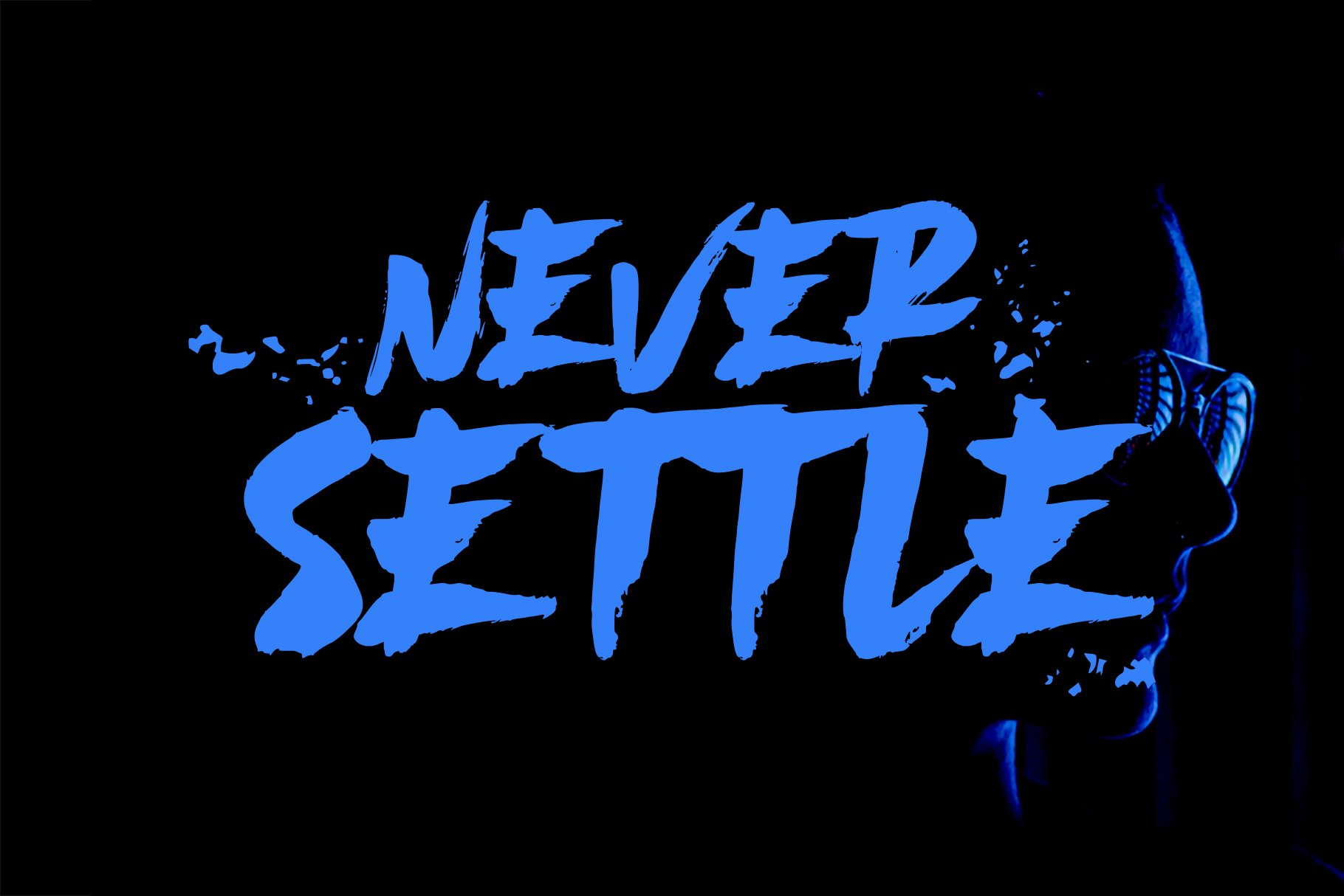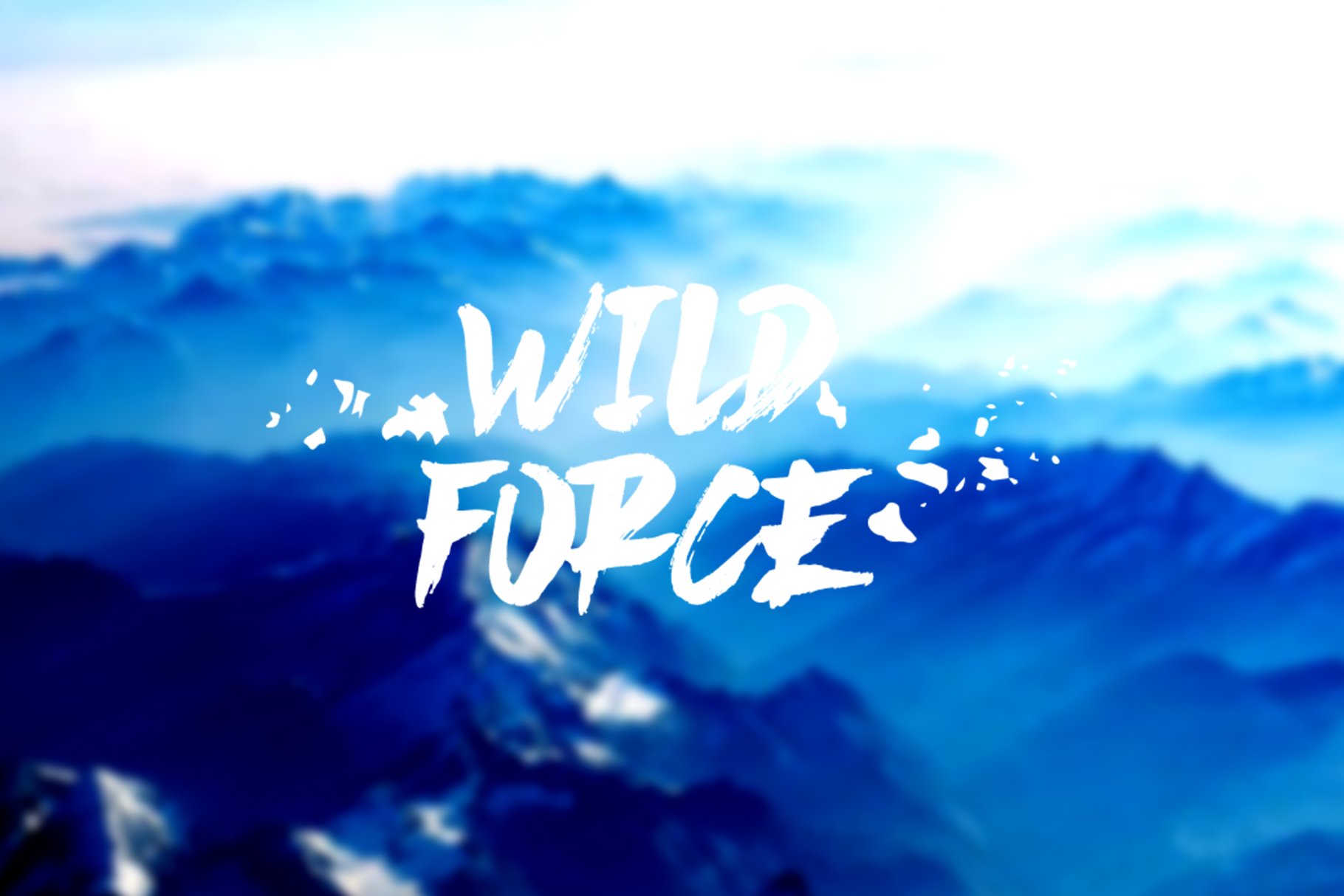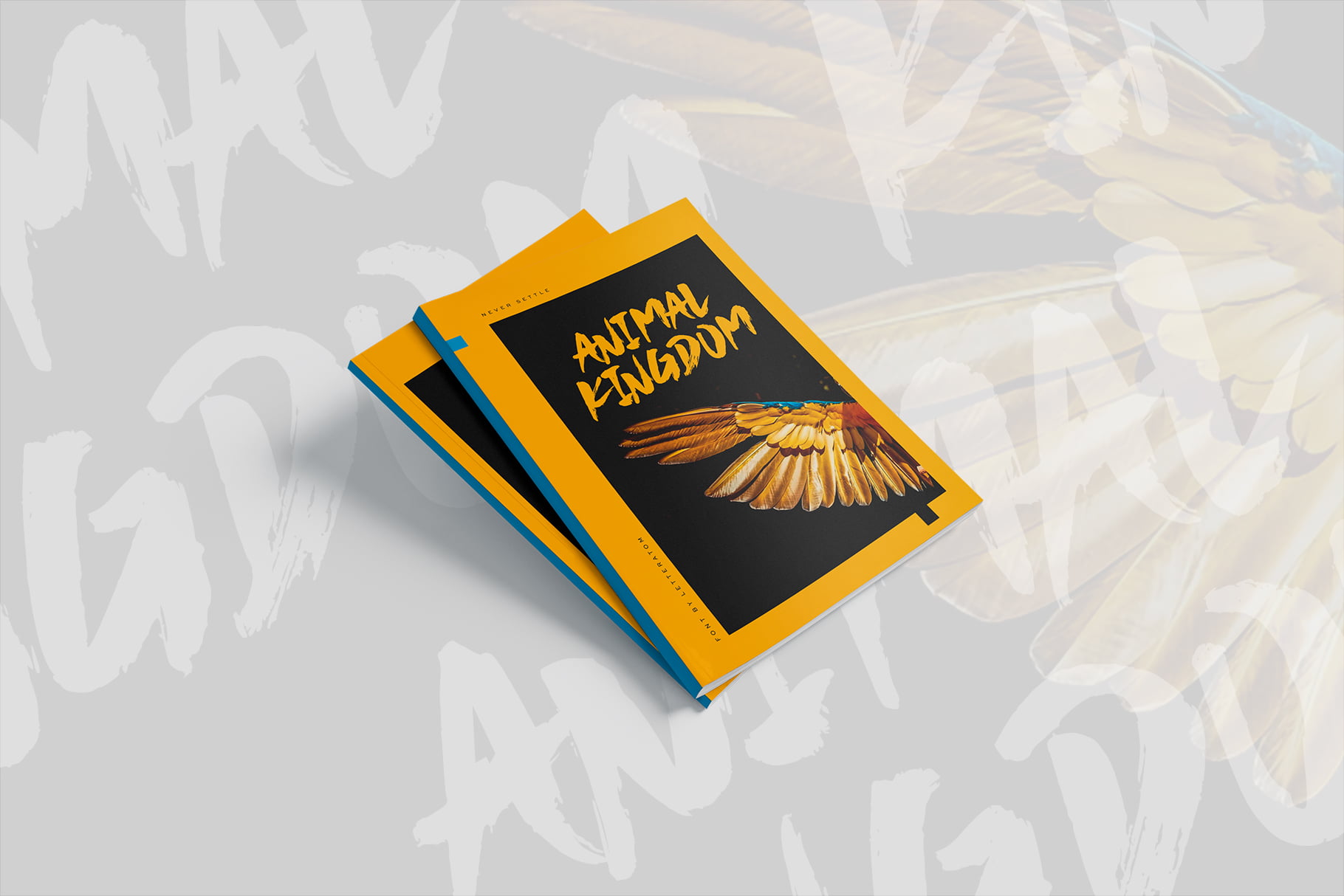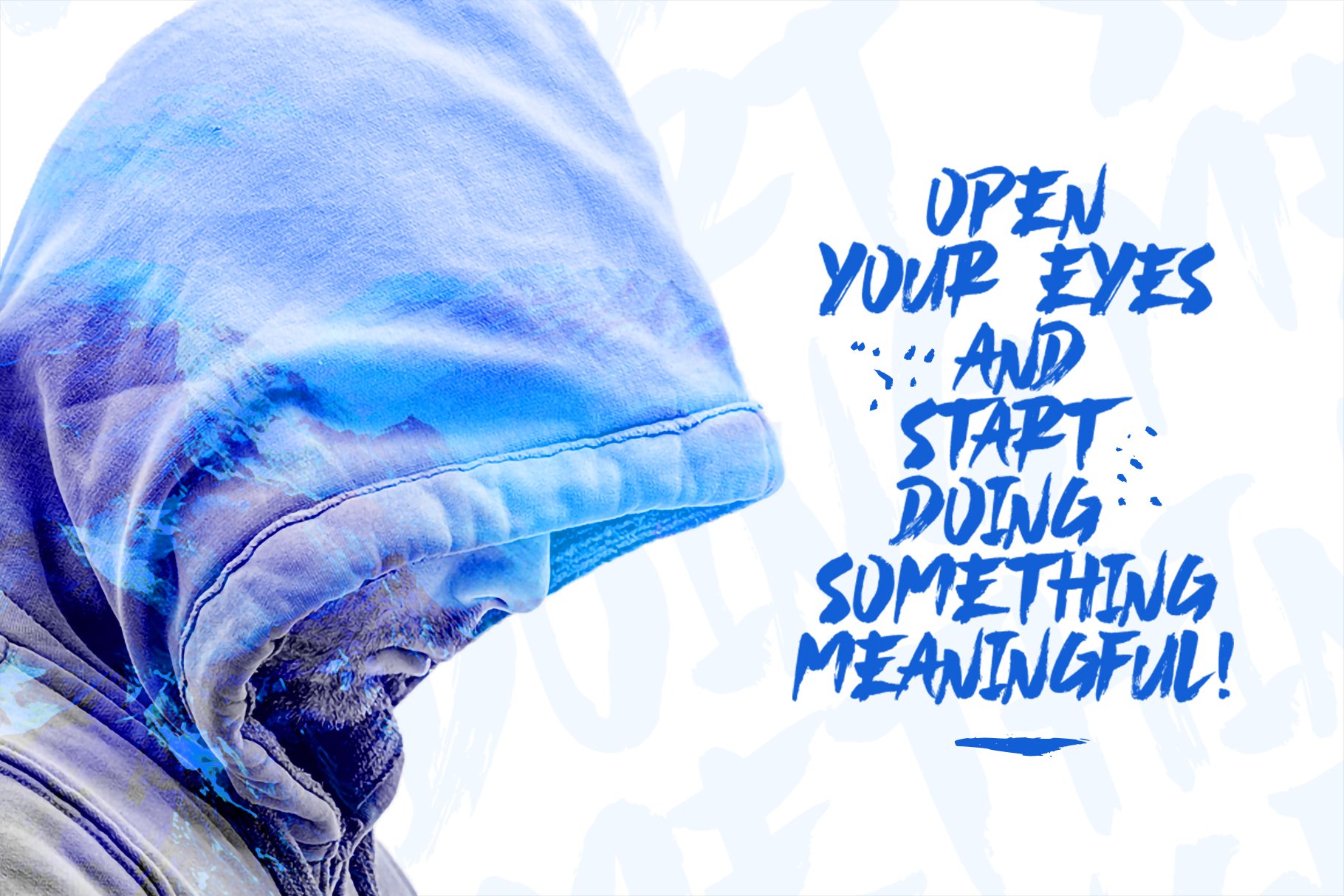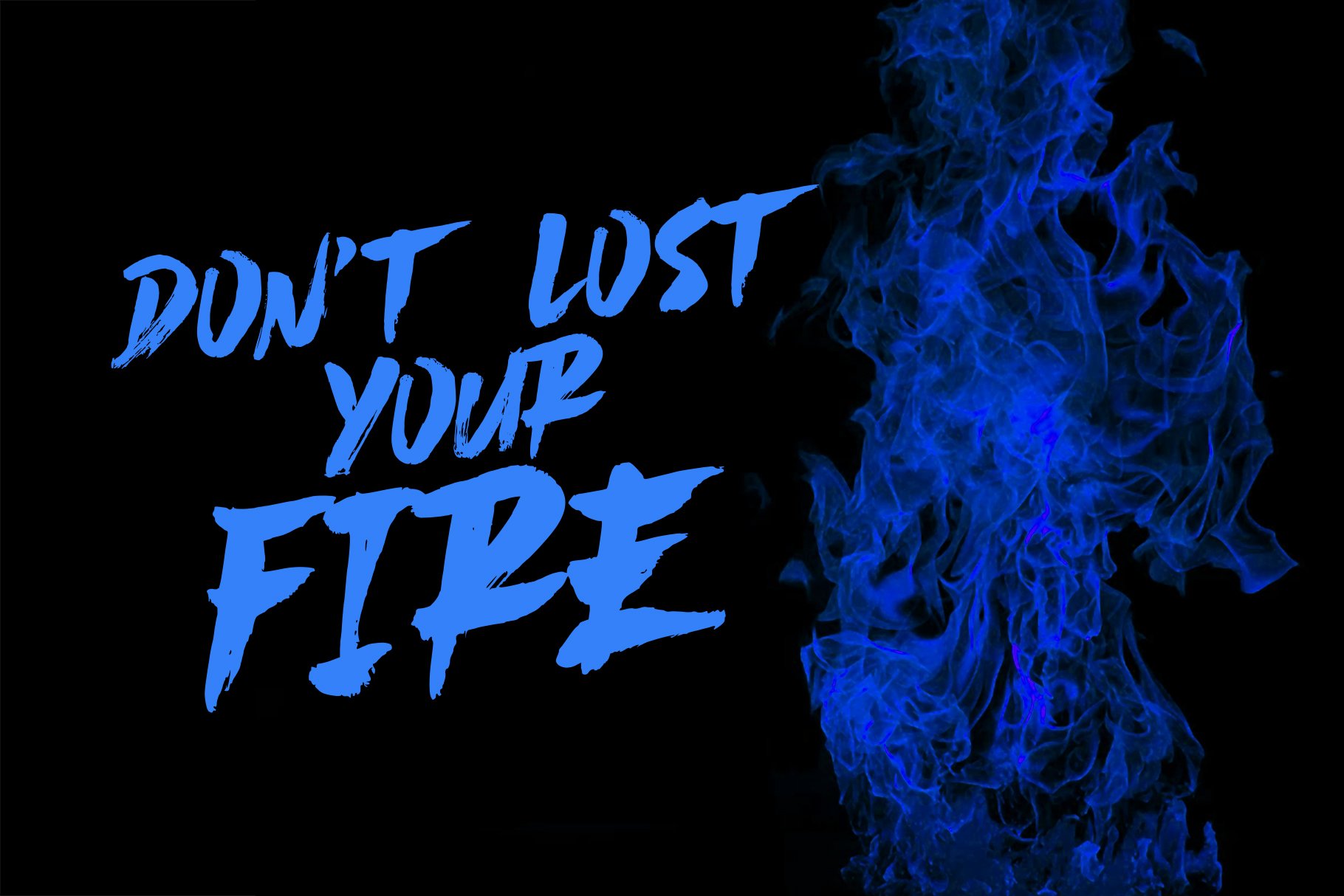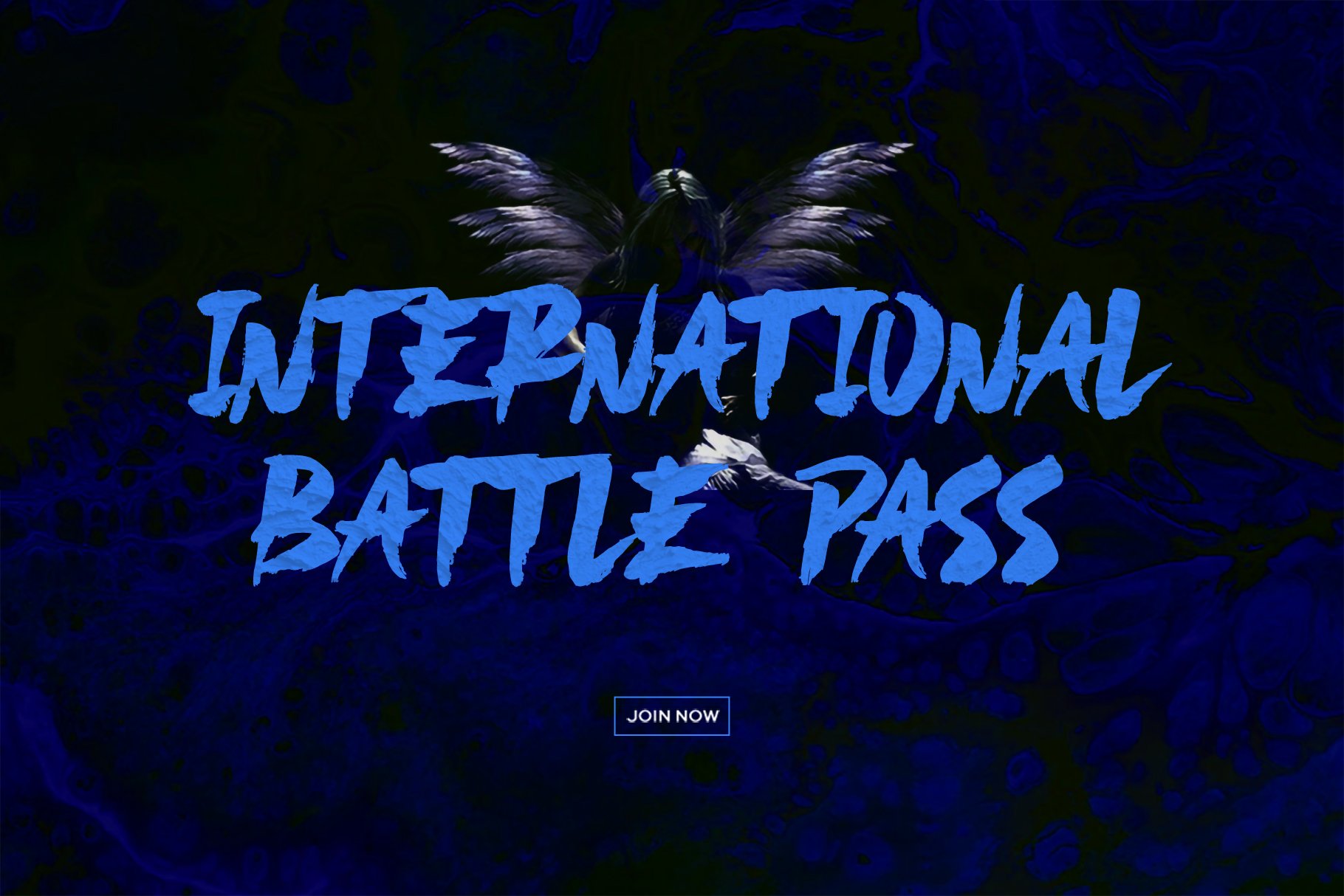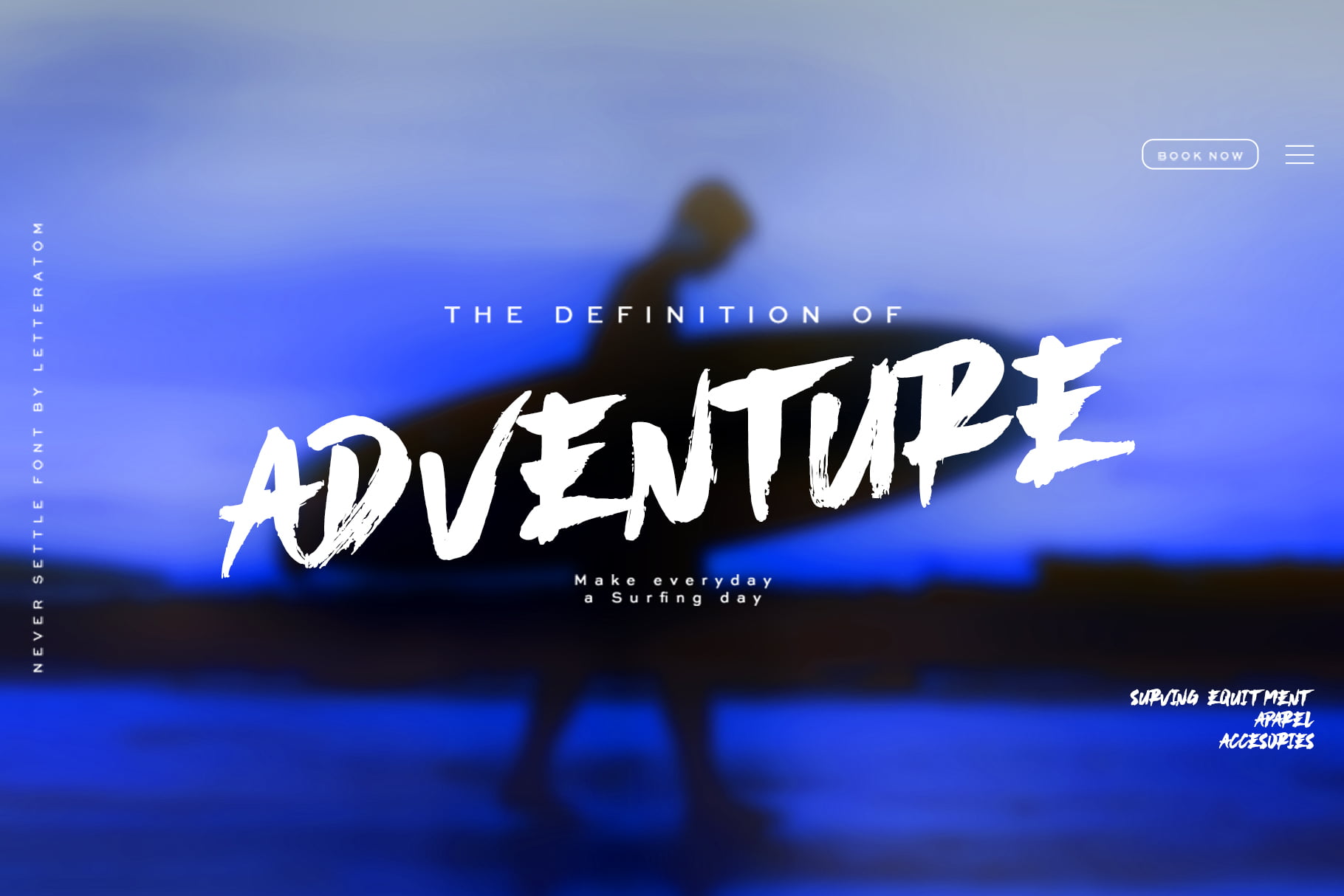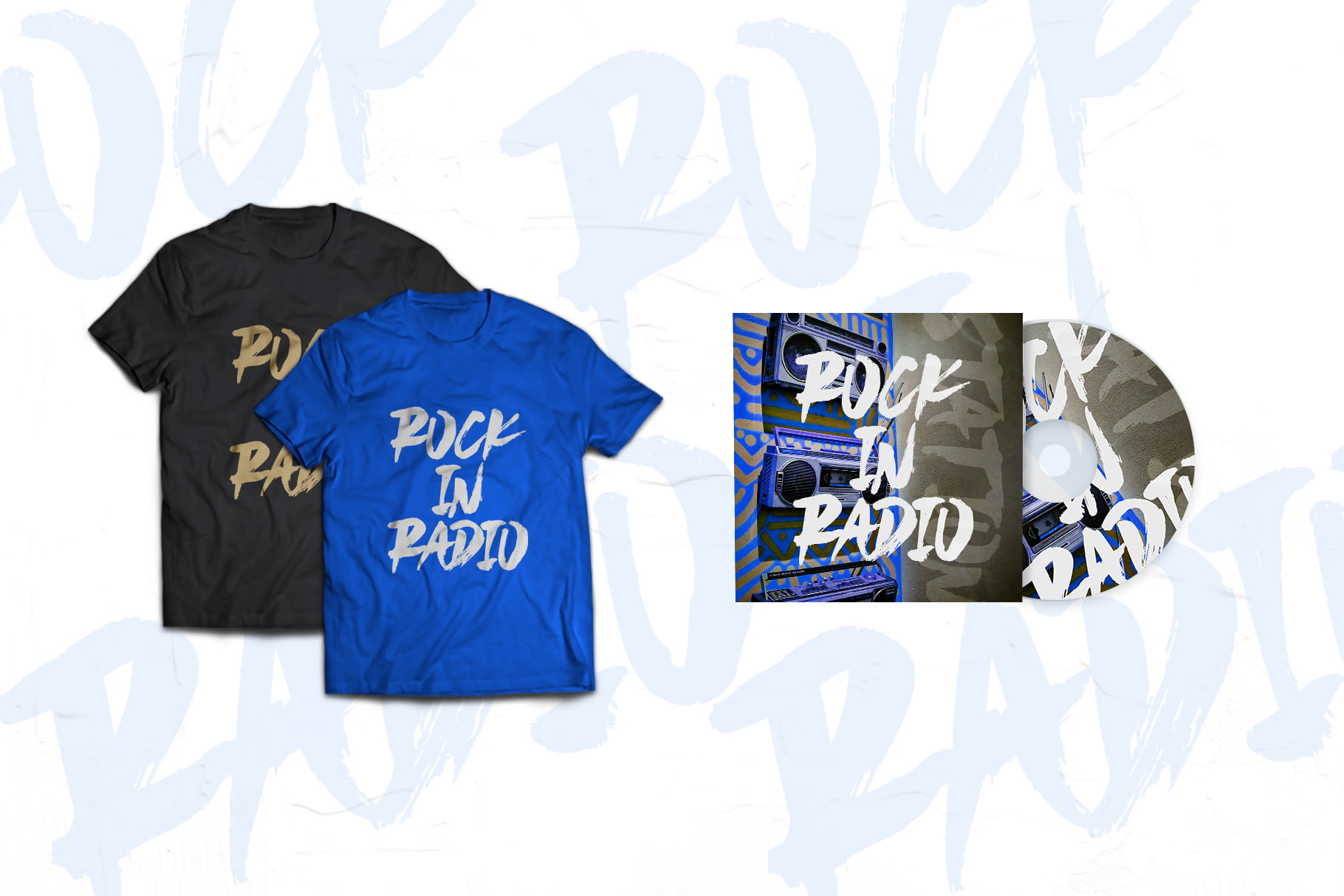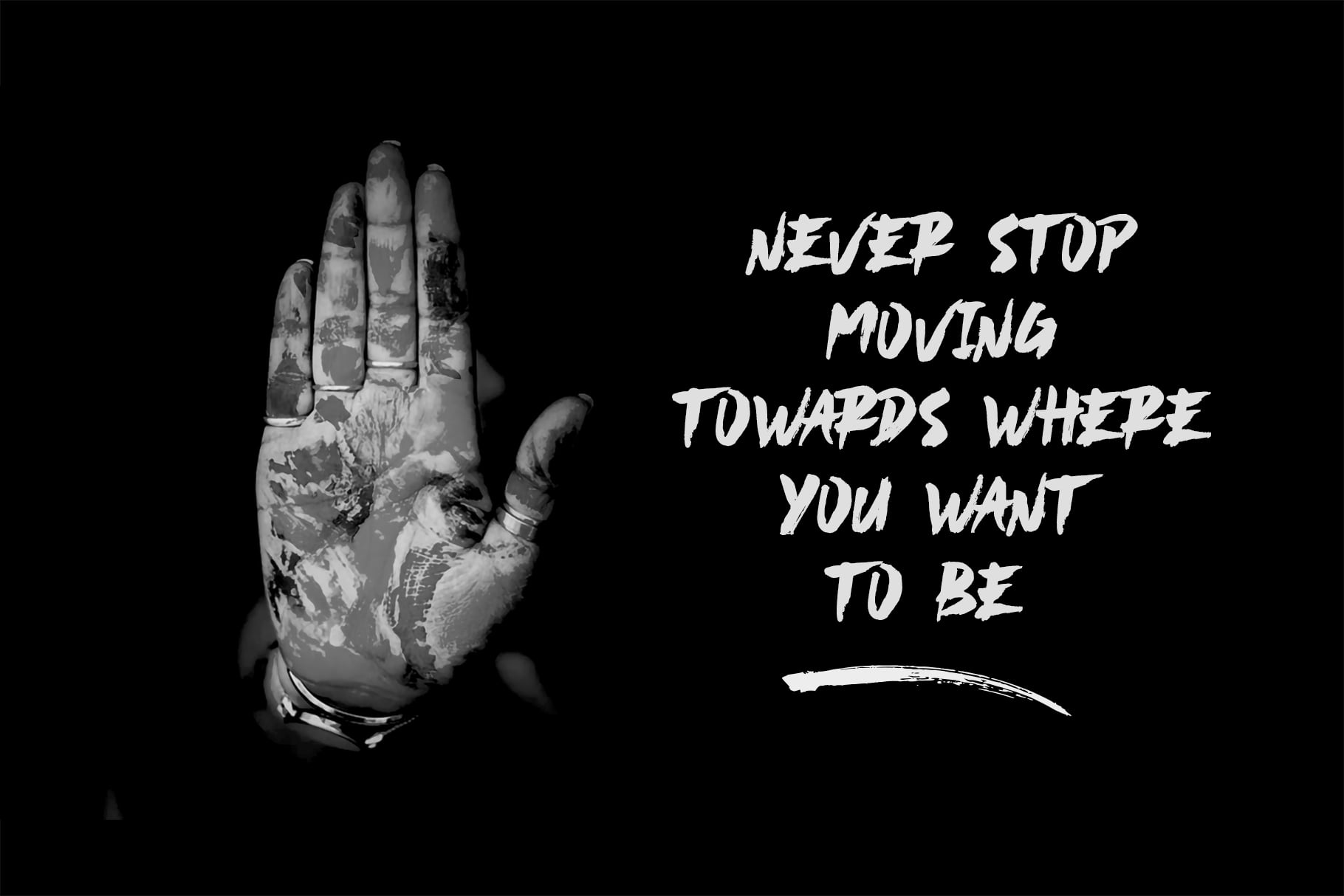
- Never Settle
Never Settle is the brush script display typeface with simple brush textured style looks and feel nice balanced.
Honestly it works perfectly for headlines, logos, posters, packaging, T-shirts and much more for branding and anything designs.
Font Features :
- Regular Version
- Character set A-Z in All Caps Style
- Ligatures
- Numerals & Punctuation
- Accented Characters
- Multiple Languages Supported